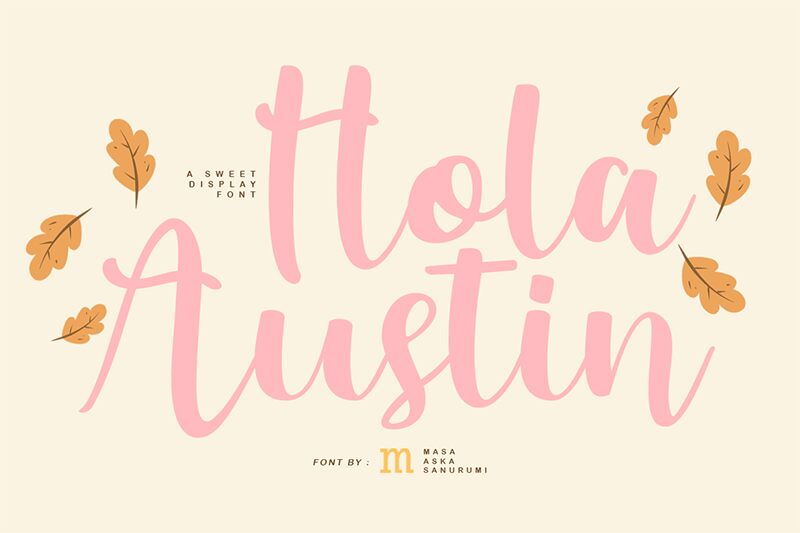
Hola Austin
Hola Austin is a captivating handwritten font that exudes a playful and organic charm. Crafted by designer Masa Aska Sanurumi, this font features a delightful blend of fluid strokes and natural variations, creating a warm and inviting aesthetic.
The irregular letter shapes and subtle imperfections lend a sense of authenticity, making it an excellent choice for a wide range of design applications, from branding and packaging to editorial layouts and event materials.
Its versatility allows it to seamlessly transition between formal and casual contexts, adding a touch of personality and character to any project.